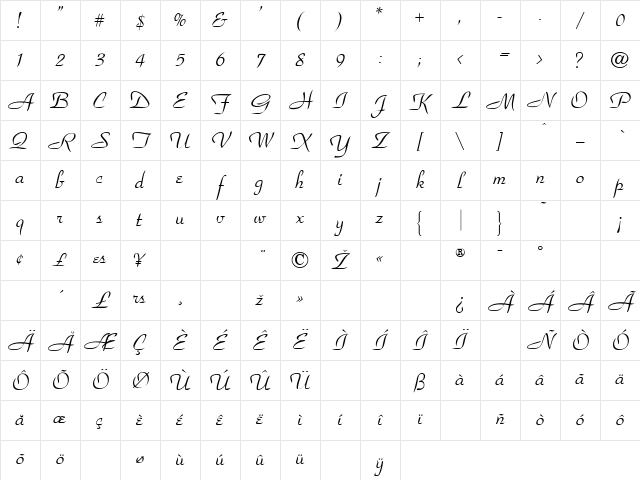
ParkAvenue Regular Free Font
ParkAvenue Regular
Foundry: Digitized by Dan X. Solo. Software by Dover Publications, Inc
ParkAvenue Family
ParkAvenue Regular
Complete ParkAvenue Regular glyph index. Displaying only characters natively supported by ParkAvenue Regular font.
Design Context for ParkAvenue
ParkAvenue is a composed and adaptable typeface that performs quietly and consistently across a wide range of design contexts.